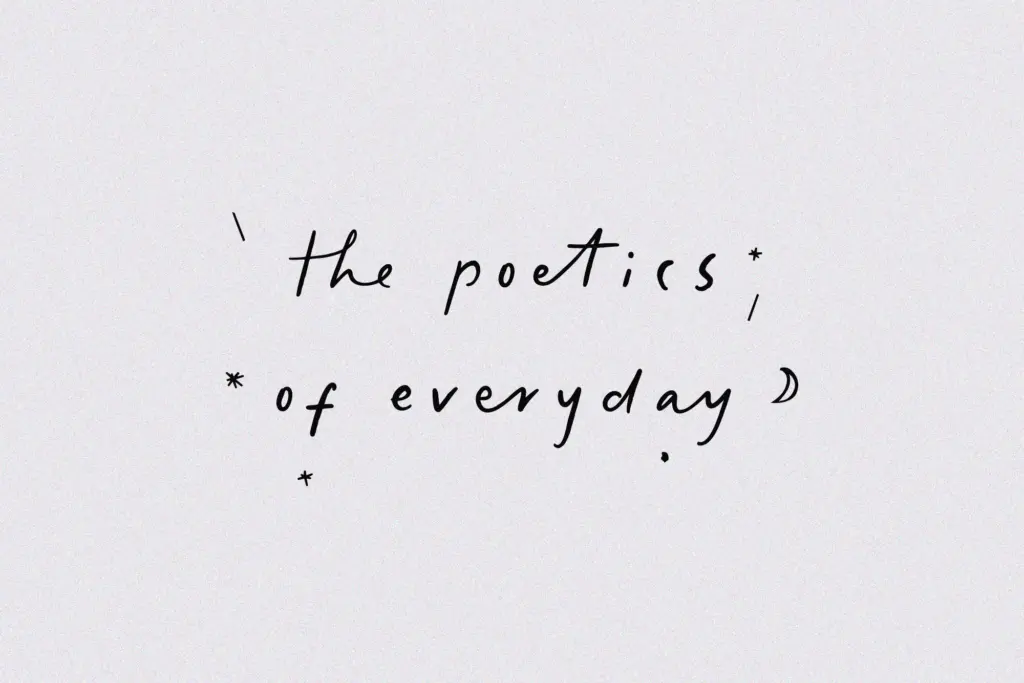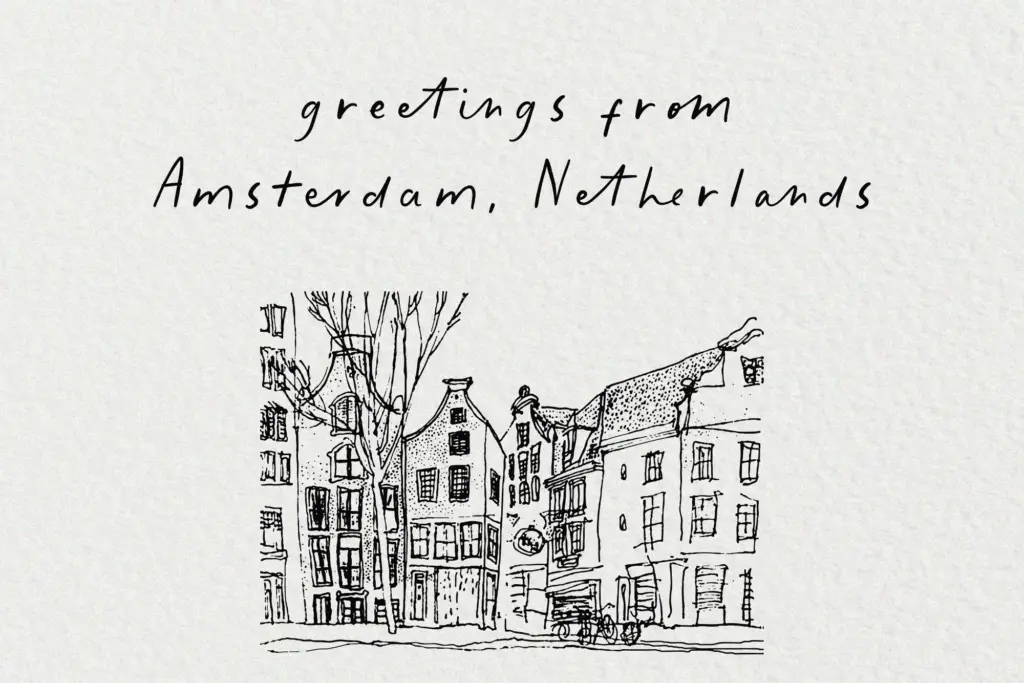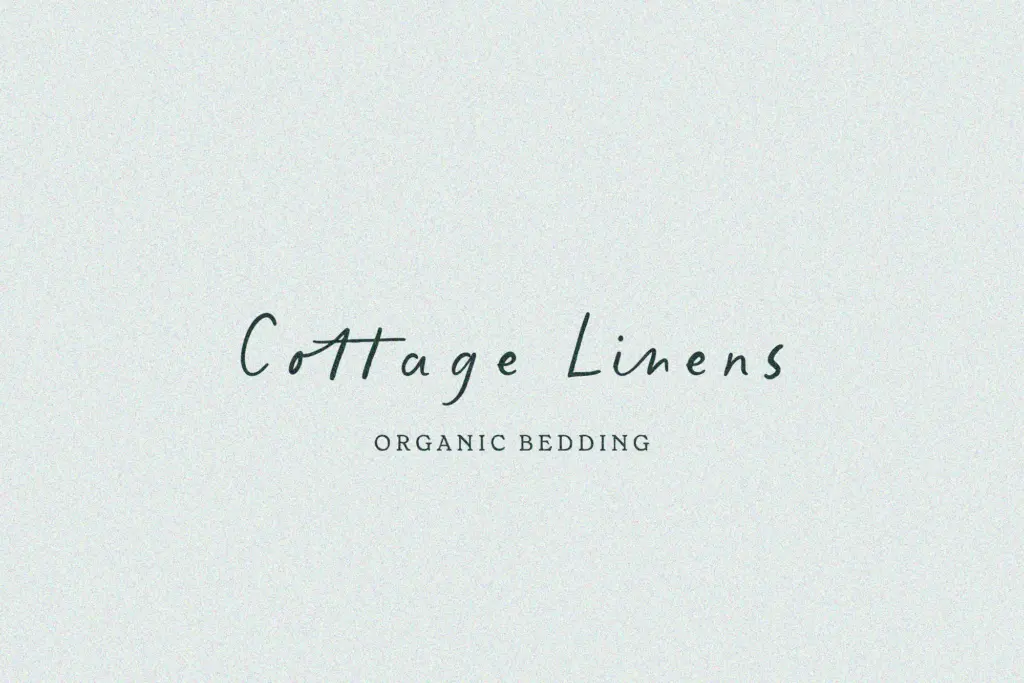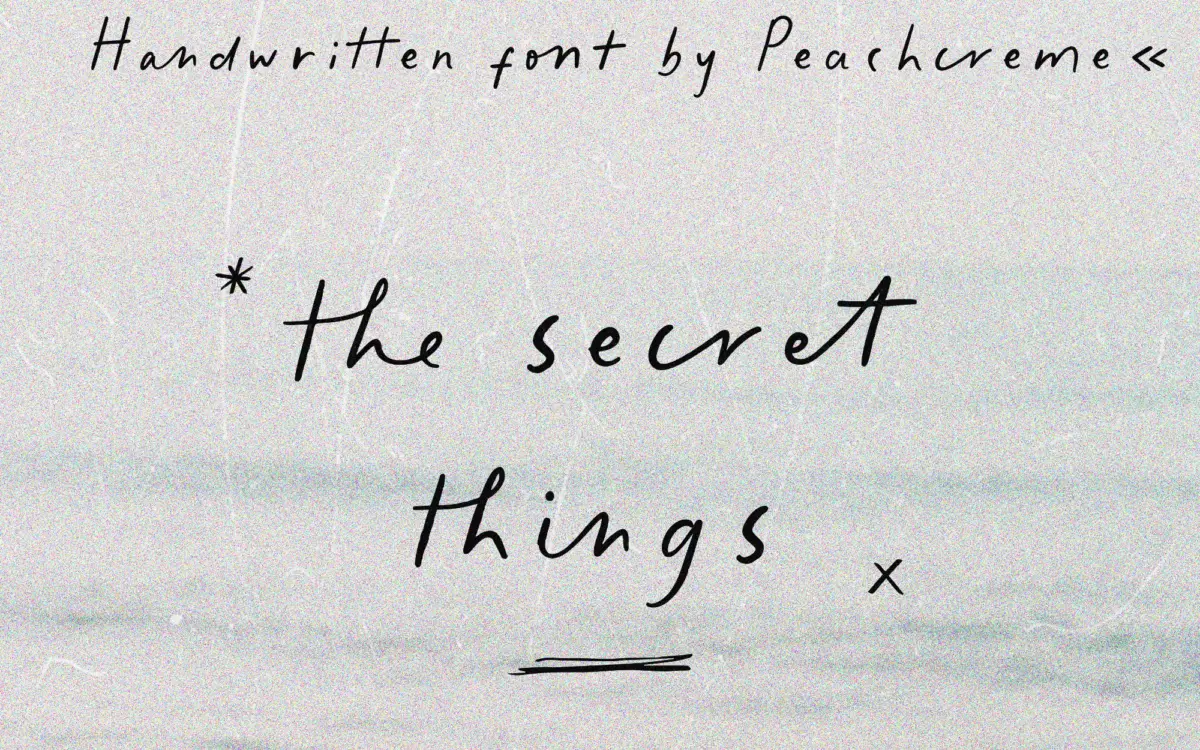
The Secret Things: a loose handwritten script for quotes and social posts
The Secret Things sits in the casual end of handwritten scripts — the kind of lettering that looks dashed off with a felt-tip rather than built for a page of running text. Strokes are inconsistent in weight on purpose, baselines drift slightly, and the joins between letters have that unforced, slightly wobbly quality that separates a genuine hand-drawn script from a stiffer calligraphic one. There’s no attempt here at formality or old-world elegance; it reads more like a note scribbled on a Post-it than an invitation script.
The letterforms are rounded and open, with generous counters and low contrast between thick and thin strokes. That keeps the overall texture friendly rather than fussy. It won’t suit anyone after a polished, editorial script — this is deliberately loose, and the looseness is the whole point of buying it.
The headline feature is a set of 45 ligatures, which is a meaningful number for a script font at this price point. Ligatures are what stop handwritten fonts looking like a font — without them, repeated letter shapes and mechanical spacing give the game away instantly. Here, common letter pairs and some longer combinations connect with alternate joining strokes, which helps break up the rhythm of a line of text so it doesn’t read as a template.
Because this is a single-weight, single-style script rather than a font duo, there’s no italic companion or sans-serif partner bundled in to handle body copy or contrast. That’s worth knowing going in — you’ll need to source your own supporting typeface for anything beyond the display line itself. The character set covers standard Latin letterforms and punctuation, which is enough for short-form use like quotes and titles but not built with heavy multilingual or extended-glyph support in mind.
At small sizes the connecting strokes and lighter hairlines start to lose crispness, particularly on screen at low resolution, so this is a font that wants room to breathe rather than being crammed into a caption at 10px.
This is squarely a display and short-copy font. A single line of a quote, a greeting, a product name scrawled across packaging, a Pinterest graphic with a sentence of text over an image — all of it plays to the font’s strengths. The casual tone works well for lifestyle branding, blog headers, and social graphics where the goal is warmth rather than authority.
It’s less suited to anything demanding legibility at length — paragraphs, body text, or dense signage will show the irregularity as noise rather than character. And because the mood is so specifically relaxed and unpolished, it won’t stretch to briefs asking for refinement, luxury, or formality; those need a steadier script hand. Used within its lane — short, large, casual — it does the job it was built for.
- 45 ligatures genuinely vary repeated letter connections instead of looking templated
- low-contrast rounded strokes give it a consistently friendly, unforced tone
- works well as a large, single-line display element on packaging or social graphics
- hairline joins lose crispness at small sizes or low screen resolution
- no companion weight or supporting sans/serif is included for body text
The Secret Things is a competent casual script that does one job — short, friendly, handwritten-feeling lines of text — reasonably well. It's not built for body copy, formality, or small-size use, so buyers need to match the brief to its narrow lane.